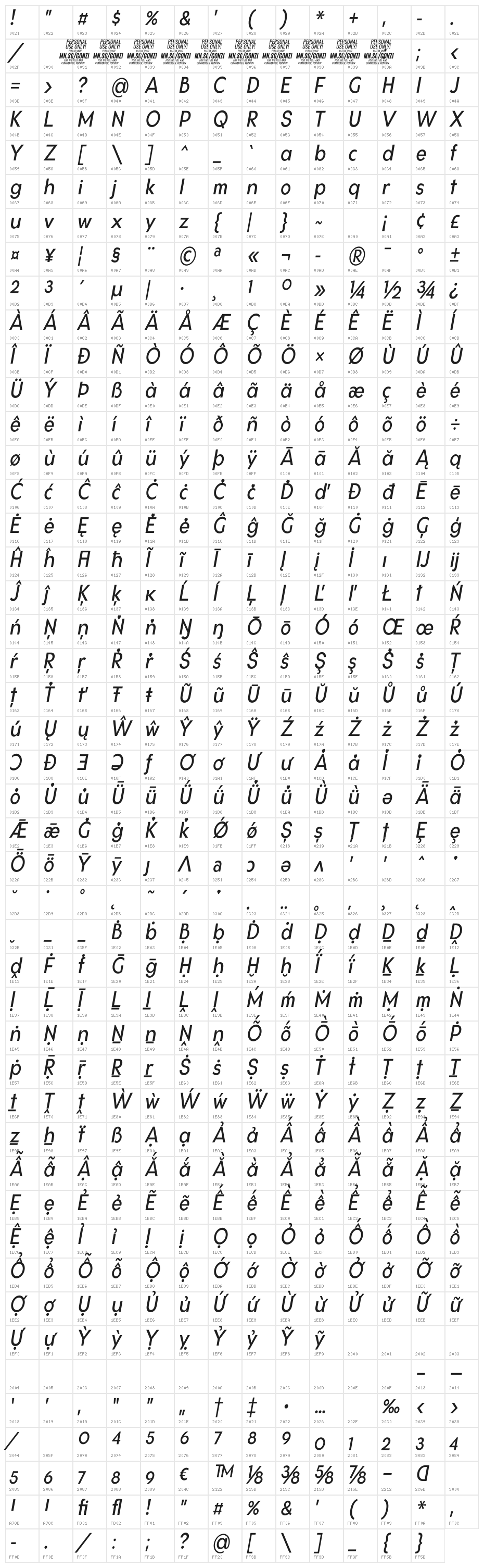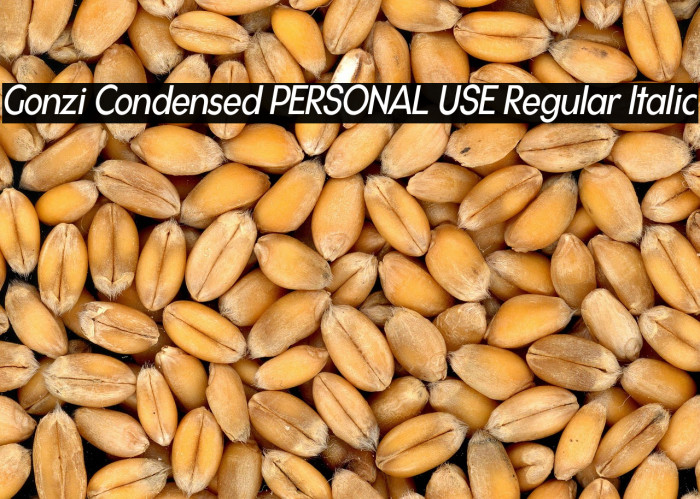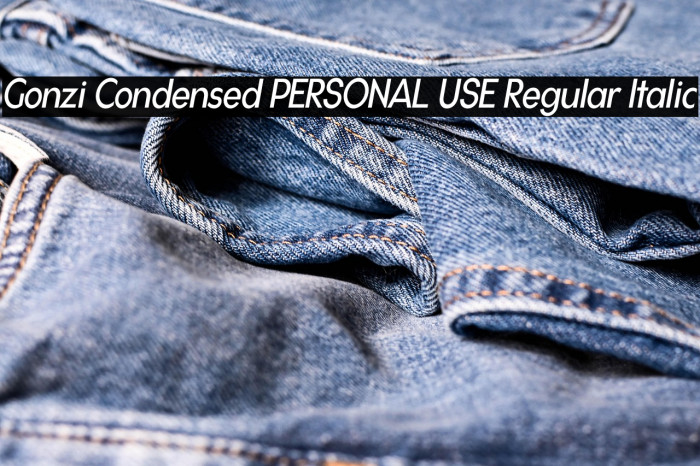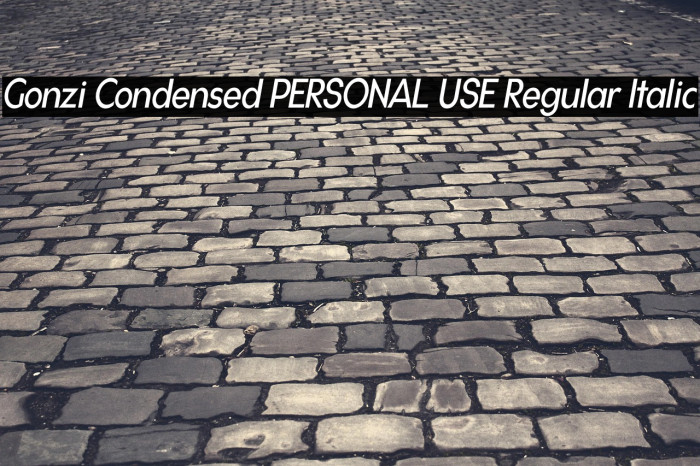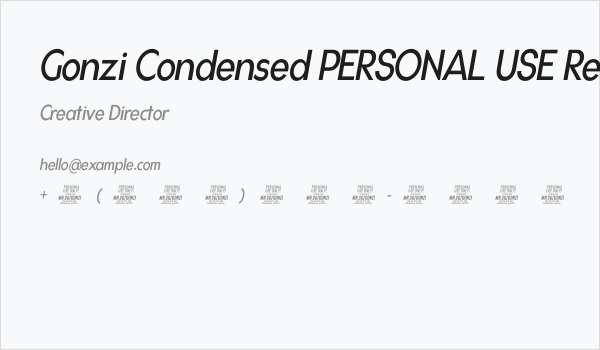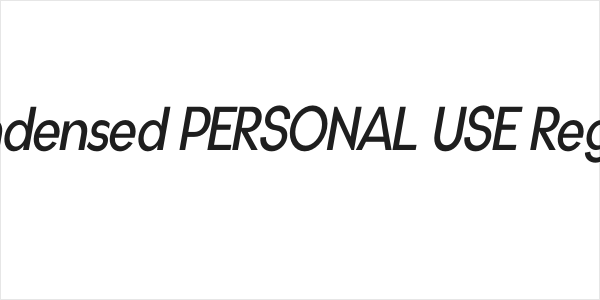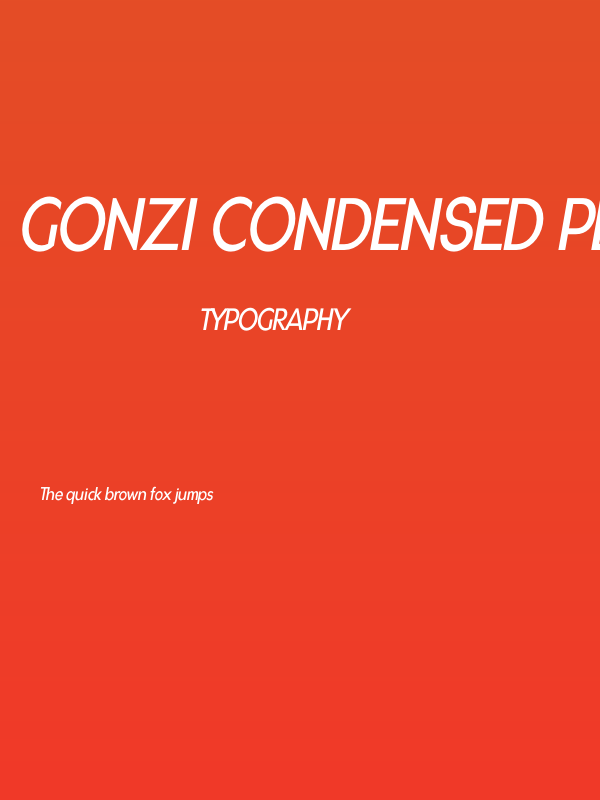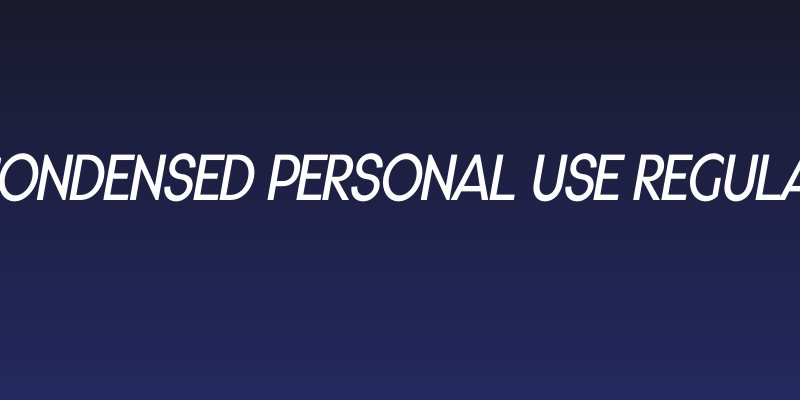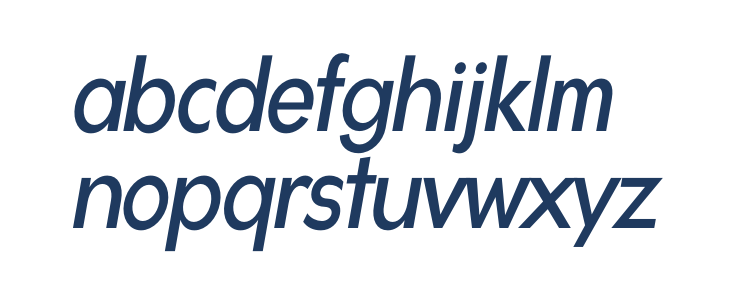
Gonzi Condensed PERSONAL USE Regular Italic Font
Gonzi Condensed PERSONAL USE Regular Italic Description
This font features a sleek, modern design with a condensed structure, making it ideal for space-saving applications. The italic style adds a dynamic and elegant touch, enhancing its visual appeal. The characters are uniformly styled with smooth curves and sharp edges, providing a clean and professional look. The uppercase and lowercase letters maintain a consistent height and width, ensuring readability. The numerals and special characters are well-integrated, matching the overall aesthetic. This font is versatile, suitable for both digital and print media.
Proposed ProjectsIdeal for branding, advertising, editorial design, and web design projects where space is limited.